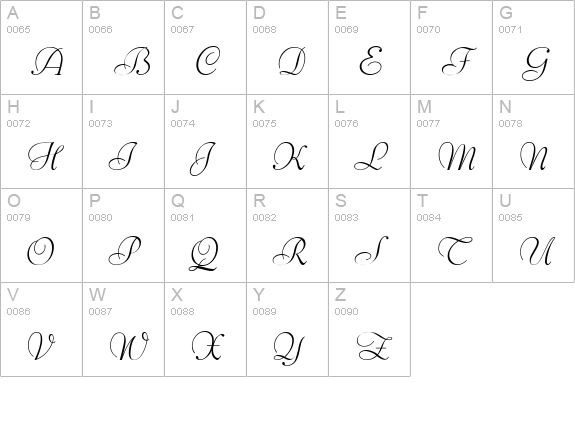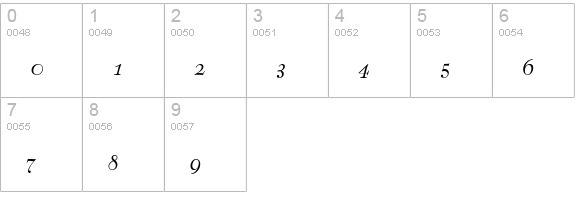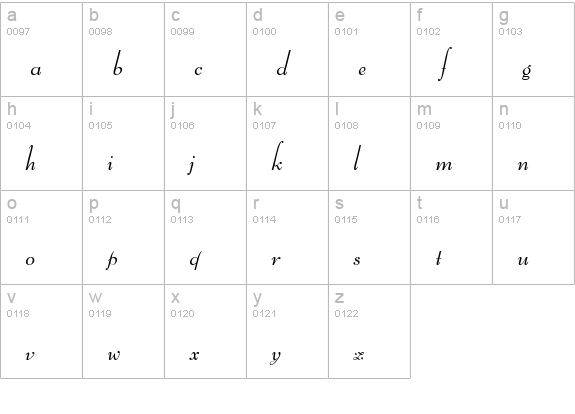
BernhardScript-Regular Font Details
BernhardScript-Regular is the standard, neutral variant in the BernhardScript typeface family \xE2\x80\x94 well suited to general body text, paragraphs, and standard typographic work.
BernhardScript-Regular is a charming and elegant font that exudes a sense of sophistication and refinement. With its delicate strokes and graceful curves, this script font adds a touch of class to any design project. Whether you're creating wedding invitations, branding materials, or elegant packaging, BernhardScript-Regular is the perfect choice to elevate your work. The best part? BernhardScript-Regular is completely free to download at FontsMarket.com. This means you can enhance your projects with this beautiful font without breaking the bank. Don't miss out on this opportunity to add a touch of luxury to your designs with BernhardScript-Regular. Download it now and let your creativity shine!